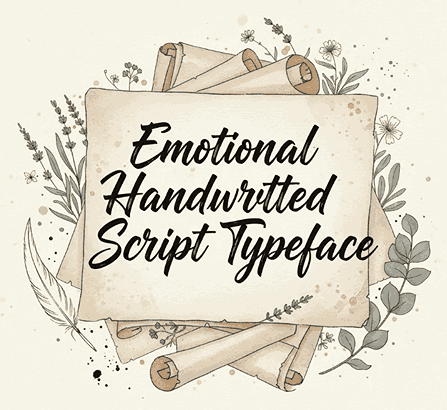
1. Introduction
In an era where digital communication often feels cold and mechanical, designers are turning to Emotional Handwritten Script Typefaces to bring genuine warmth and human connection back into visual storytelling. This style of typography mimics natural handwriting—soft strokes, organic curves, and expressive movement—which helps brands communicate personality, authenticity, and heartfelt emotion.
Whether used for product packaging, social media branding, wedding invitations, or personal storytelling, emotional handwritten scripts continue to dominate aesthetic trends in 2025. This article explores what makes them unique and features a curated selection of stunning fonts from NihStudio, known for their expressive handcrafted typefaces.
2. What Makes an Emotional Handwritten Script Typeface Special?
Unlike standard script fonts, emotional handwritten scripts emphasize mood, tone, and expressive intention. Every curve imitates the imperfections of human writing, creating a deeper emotional resonance. These typefaces can feel:
Romantic
Nostalgic
Playful
Intimate
Dreamy
Soft and sentimental
Their emotional depth makes them ideal for visual projects that aim to connect with audiences on a personal level.
3. Key Characteristics of Emotional Script Fonts
Emotional handwritten typefaces often share the following features:
Organic Flow
Natural pen-like strokes mimic the fluid motion of handwriting.
Unique Personality
Every font has its own emotional tone—some are cute and soft, others elegant or dramatic.
Authentic Imperfections
Slight inconsistencies add charm and realism.
Dynamic Stroke Variations
Thick and thin transitions increase expressiveness and rhythm.
Versatility for Creative Use
Works well for branding, quotes, product titles, logos, and storytelling graphics.
4. Why Emotional Script Fonts Are Popular in Modern Branding
Brands increasingly want to feel more human, warm, and approachable. Emotional handwritten scripts deliver that by conveying:
Personal connection
Honesty and authenticity
Handmade quality
Cozy, aesthetic-friendly design
Emotional storytelling
With the rise of handmade markets, lifestyle brands, self-care products, and nostalgic aesthetics, these fonts have become more relevant than ever.
5. Best Use Cases for Emotional Handwritten Script Typefaces
1. Branding & Logo Design
Perfect for lifestyle brands, boutiques, artisans, and personal brands.
2. Social Media Content
Ideal for Instagram quotes, Pinterest pins, and aesthetic posts.
3. Wedding Invitations & Event Stationery
Soft emotional strokes match romantic themes beautifully.
4. Product Packaging
Especially effective for handmade goods, candles, beauty products, teas, and journals.
5. Book Covers & Personal Letters
Brings a nostalgic handwritten charm to literary designs.
6. Recommended Emotional Script Fonts from NihStudio
Below are carefully selected fonts from NihStudio.com that represent the beauty of emotional handwritten script design.
A deeply personal handwritten script with natural uneven strokes—perfect for diaries, journals, self-love quotes, and emotional branding. It feels raw, honest, and heartfelt.
Best Use Cases: emotional quotes, heartfelt product packaging, self-care brand identity.
Cerita Kita, meaning “Our Story,” offers warm handwritten curves that evoke nostalgia and personal storytelling. It blends softness with simplicity, making it great for romantic and intimate designs.
Best Use Cases: wedding themes, relationship journals, love letters, storytelling projects.
A playful and cute handwritten script with youthful emotional energy. It adds a touch of innocence and fun, making it vibrant and expressive.
Best Use Cases: cute aesthetics, children’s branding, youthful product packaging, fun social media posts.
7. How to Choose the Right Emotional Script Typeface
When selecting an emotional handwritten font, consider:
1. Tone and Personality
Does the font match the emotional message you want to convey?
2. Legibility
Scripts must remain readable across different sizes and backgrounds.
3. Usage Context
Romantic scripts work for weddings; playful ones fit youth branding.
4. Brand Consistency
Choose a typeface that aligns with your brand’s story and identity.
5. Technical Features
9. Final Thoughts
Emotional handwritten script typefaces are more than just fonts—they are a storytelling medium. They help brands and designers express sincerity, warmth, and creativity in ways other typefaces cannot. As design trends continue valuing authenticity and emotional resonance, these fonts will remain essential in modern visual communication.
If you’re looking for expressive, handcrafted, emotional scripts, the curated selections from NihStudio above offer some of the best options for 2025.